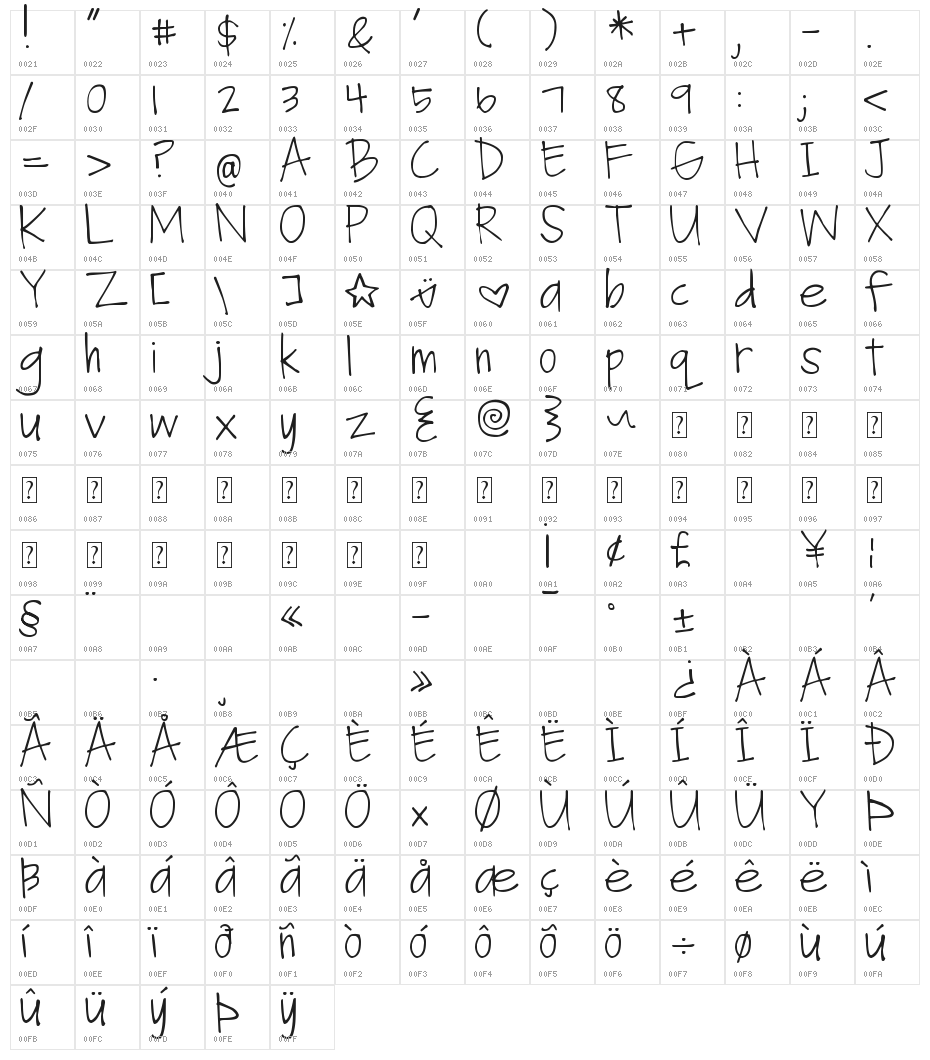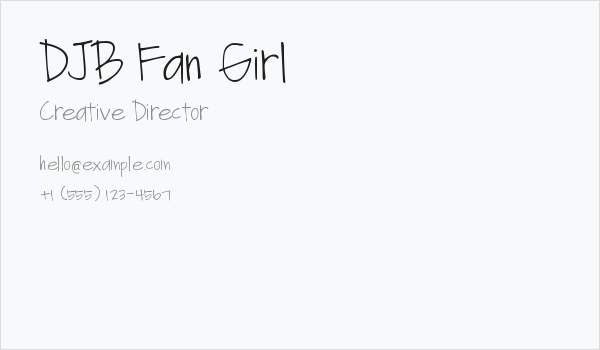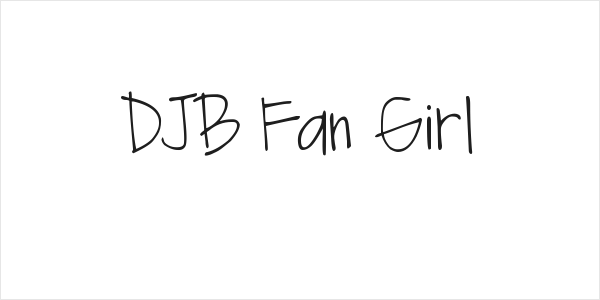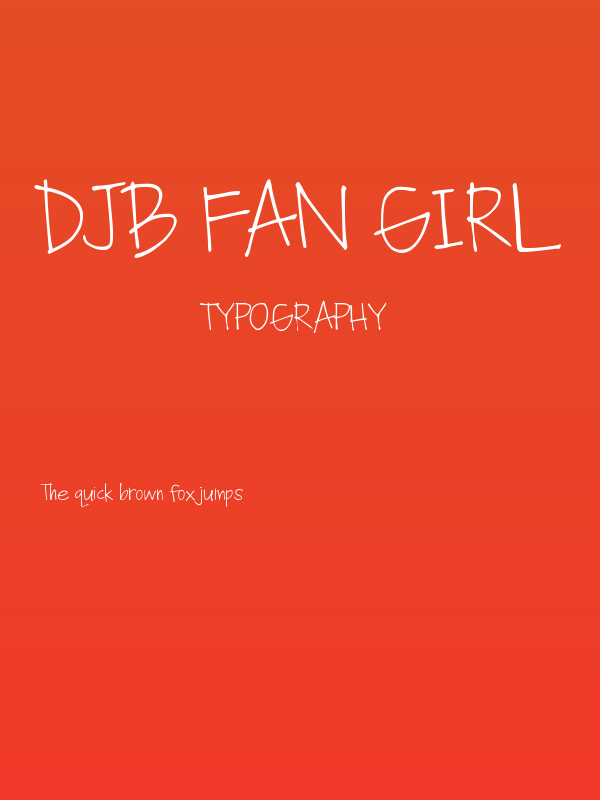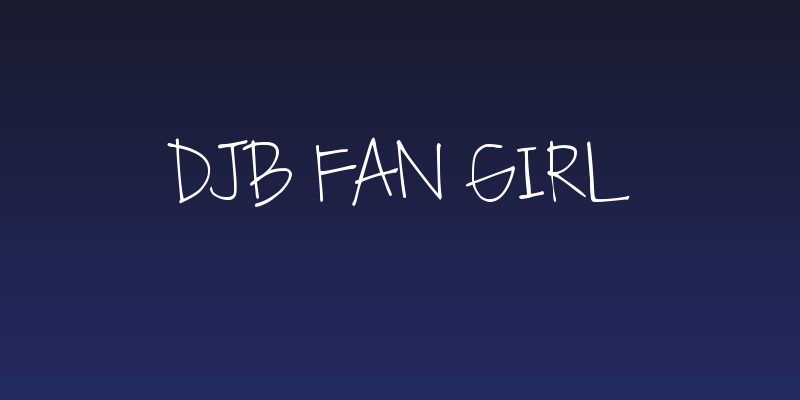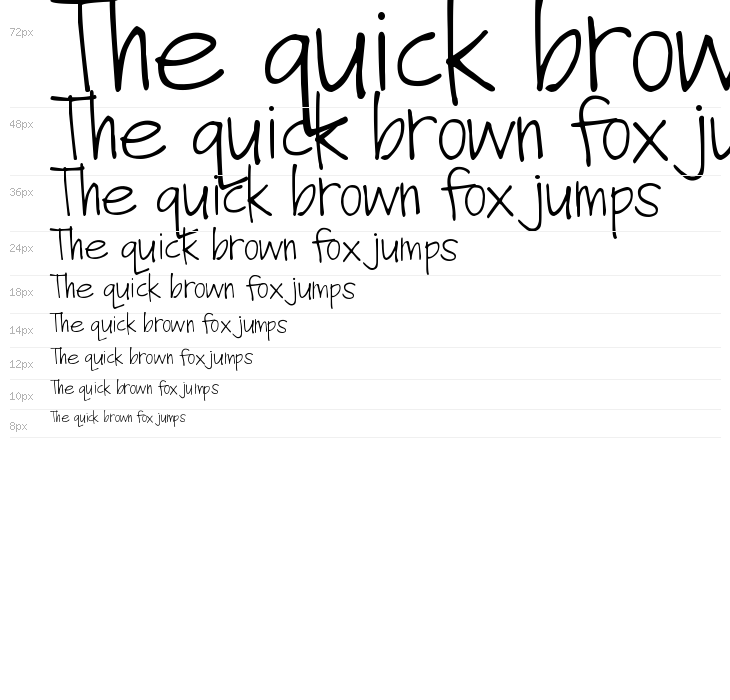
DJB Fan Girl Font
DJB Fan Girl Description
This font exudes a playful and casual handwritten style, characterized by its irregular, slightly slanted letterforms that mimic natural handwriting. The strokes are uneven, adding a personal and informal touch, making it ideal for projects that require a friendly and approachable feel. The uppercase and lowercase letters maintain a consistent style, with rounded edges and a slight tilt, enhancing its whimsical appearance. The numerals and special characters follow the same design principles, ensuring uniformity across all glyphs. This font is perfect for creative projects, such as invitations, greeting cards, and personal branding, where a touch of individuality is desired.
| Proposed Projects | Ideal for invitations, greeting cards, personal branding, and creative projects. |